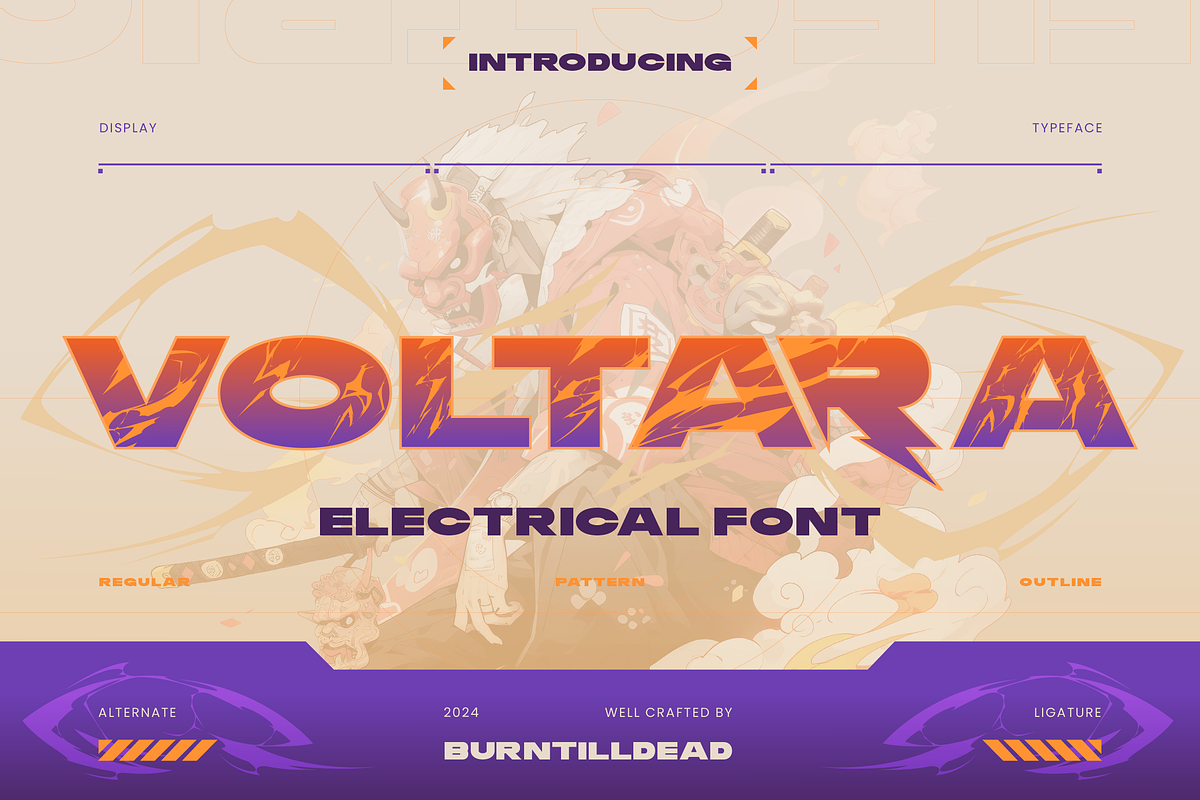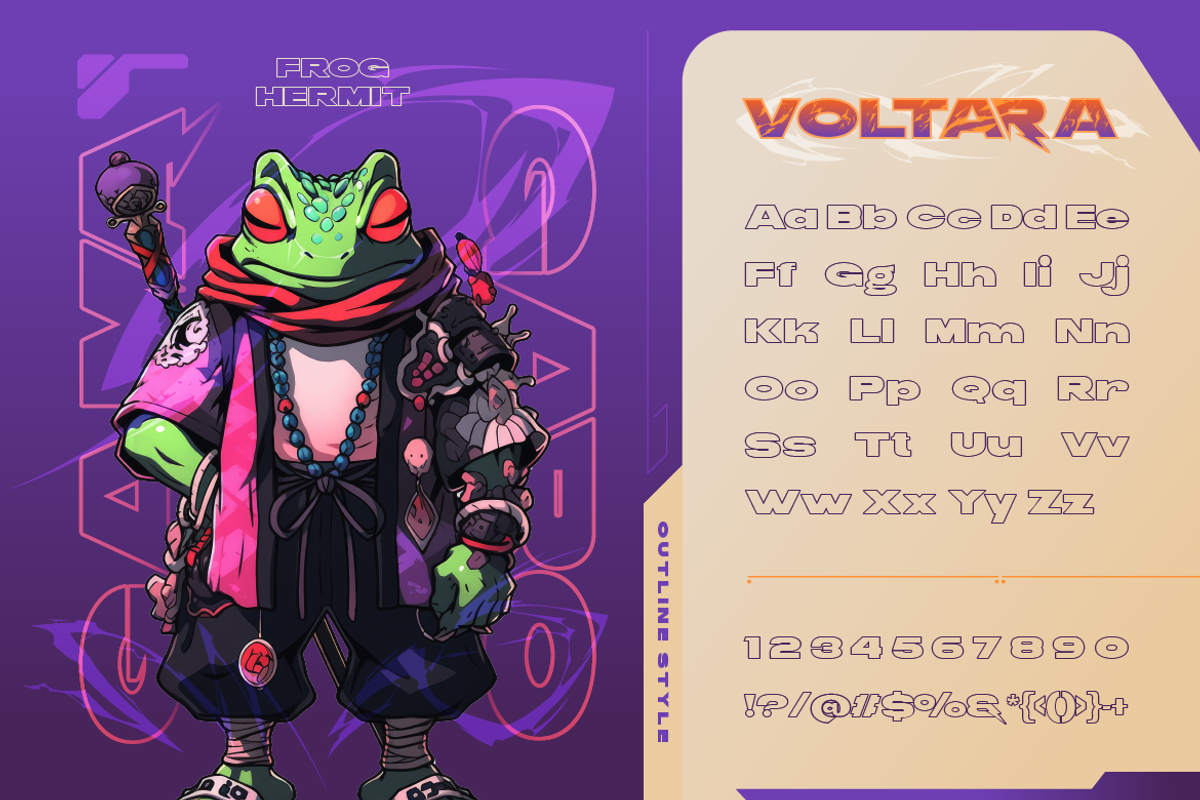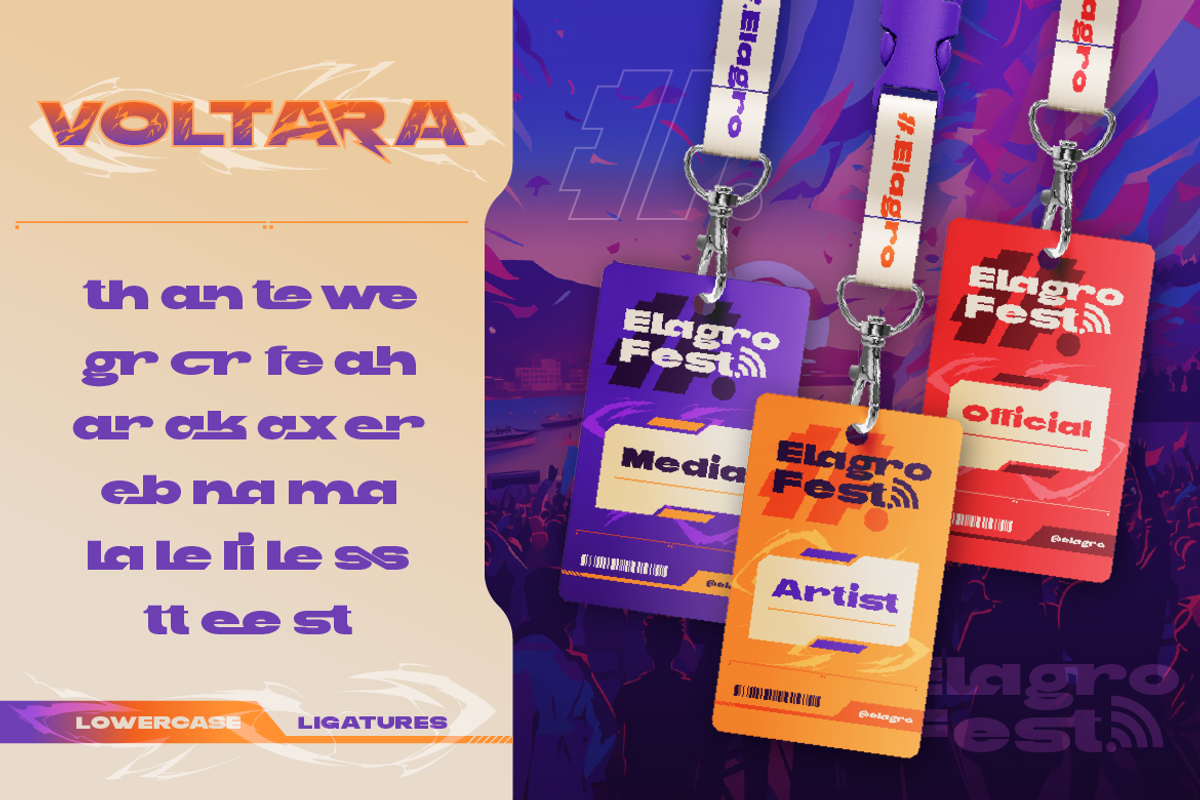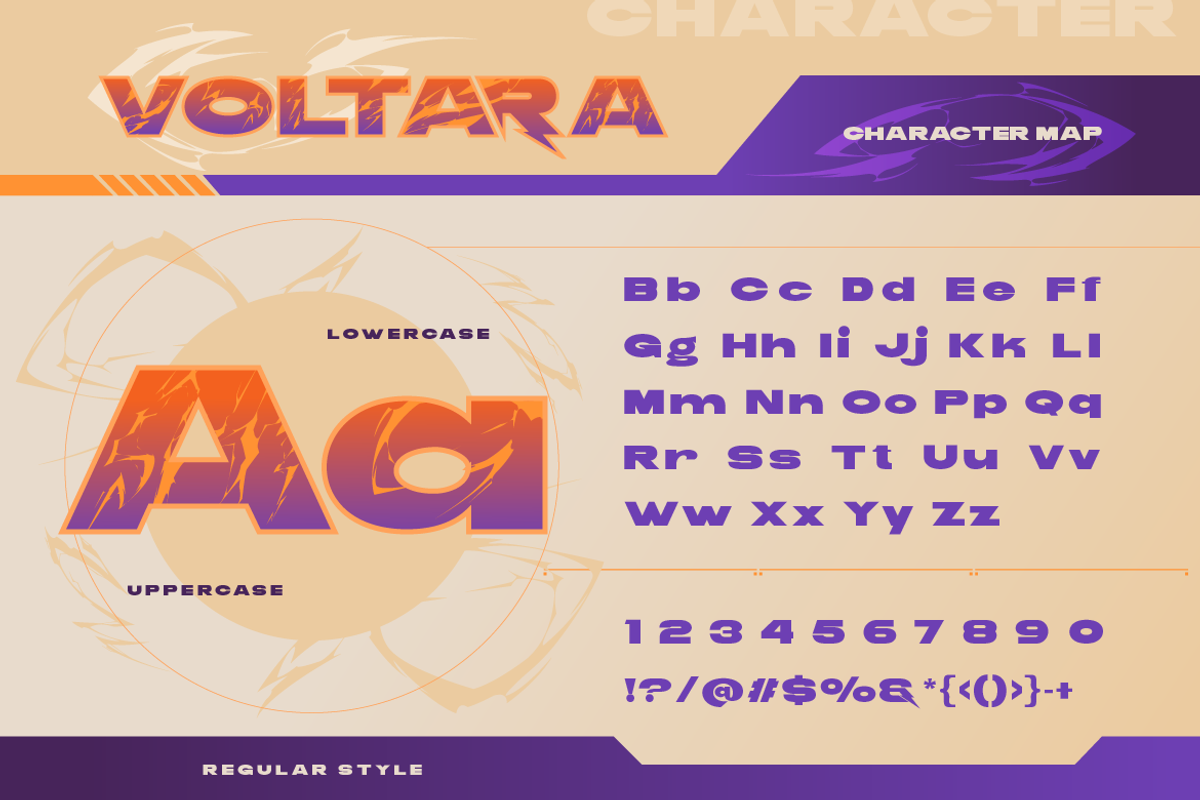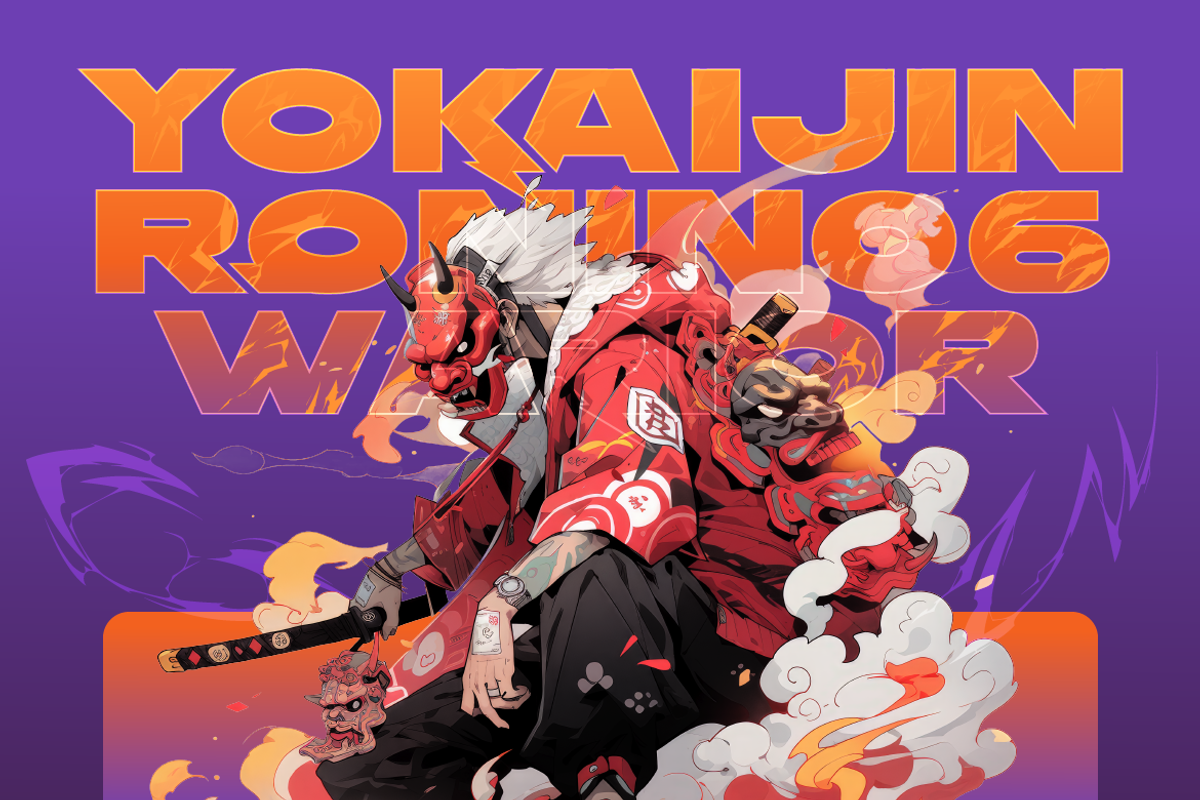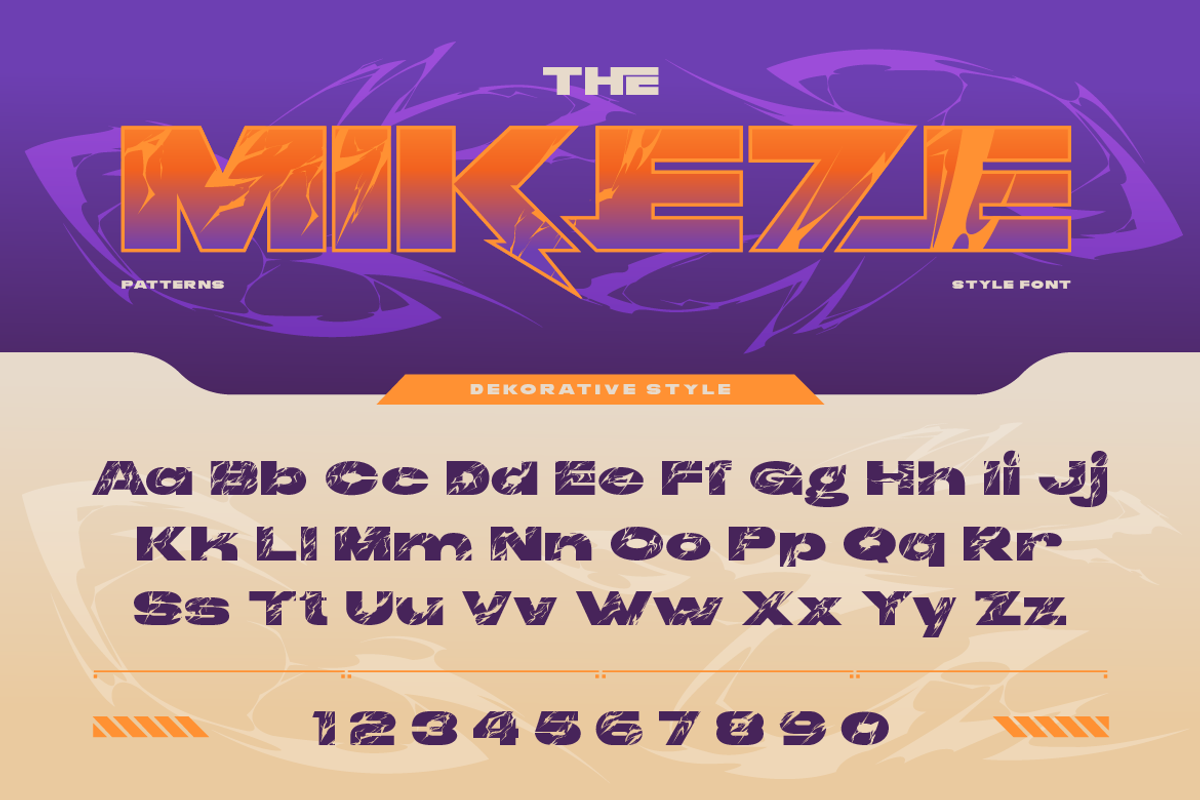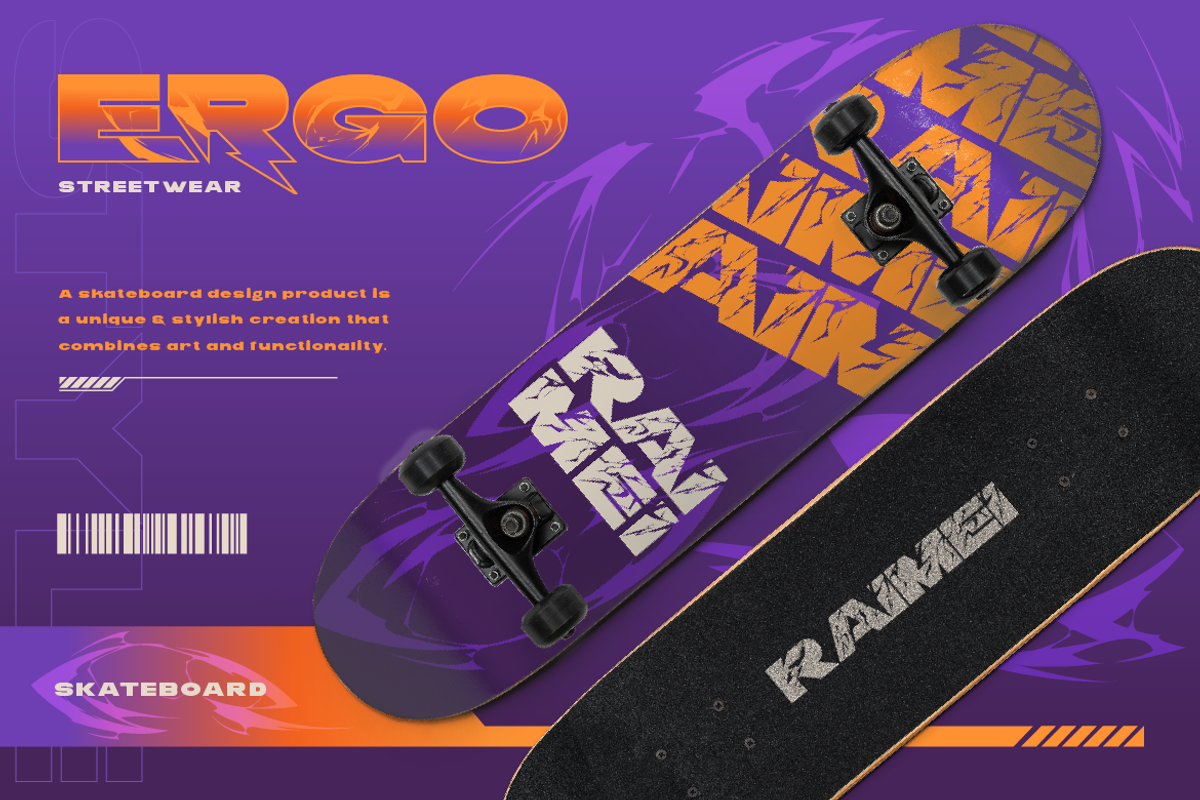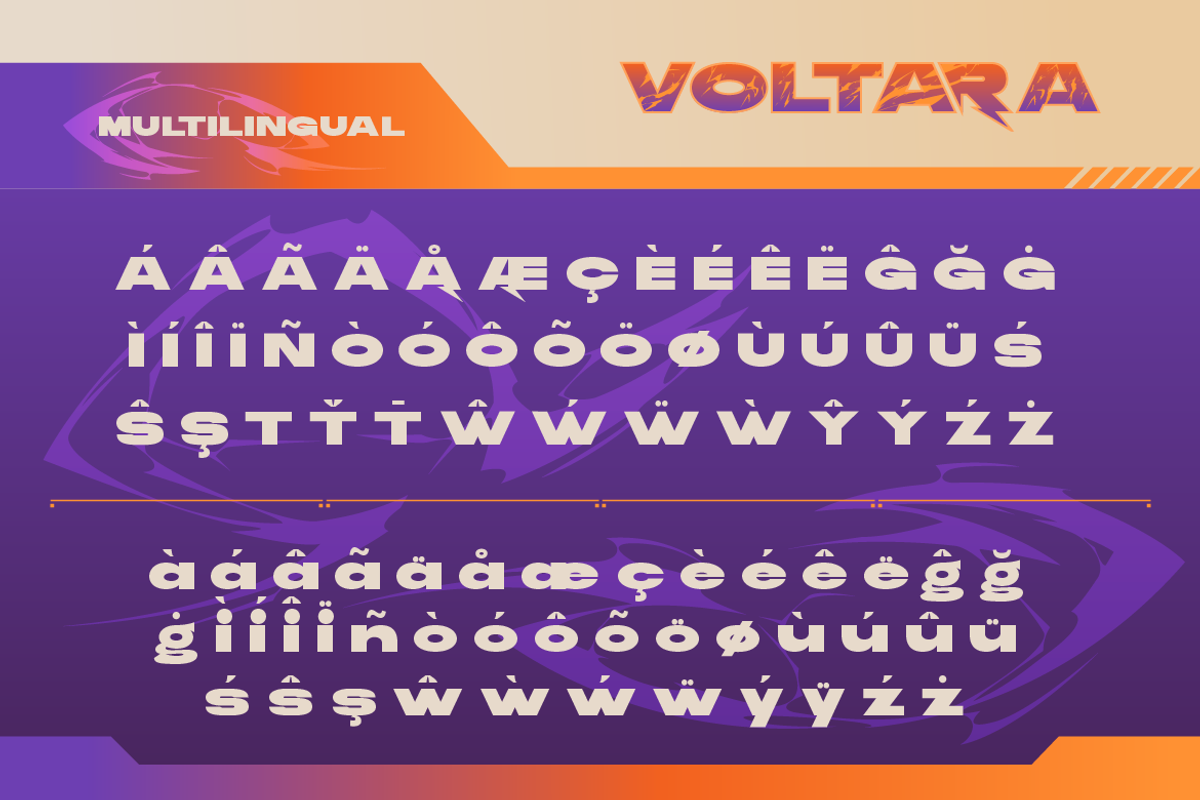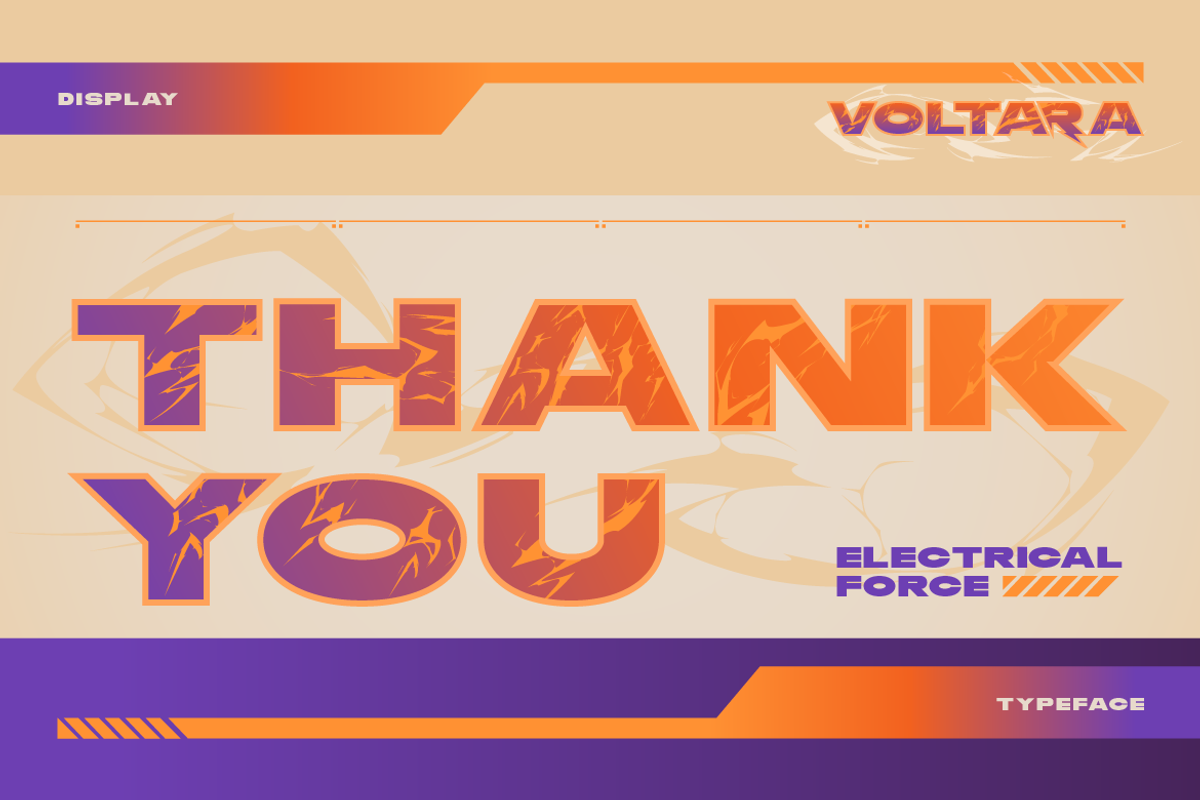
Voltara
Charged the creativity with Voltara, where every letter is a surge of innovation. The energetic and dynamic style inspired by the volt or electrical theme. This font will infuse the text with creative and electrifying spirit. This modern and unique design can make your design stand out with jolt of style. Voltara have three styles : regular, decorative and outline; so perfectly choice for any design project with volt theme.
- A - Z set (uppercase & lowercase)